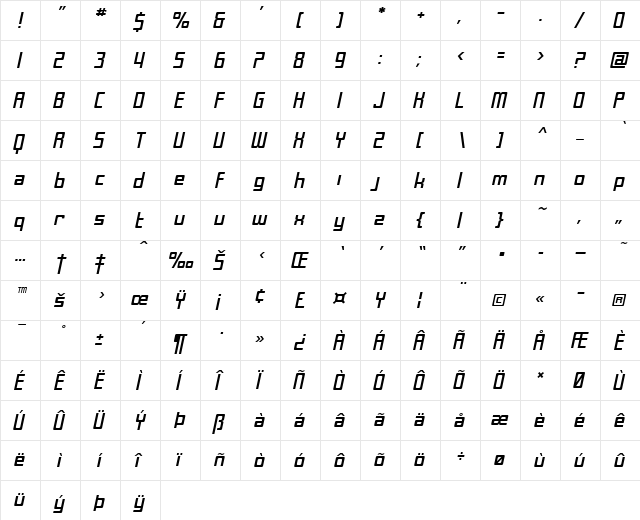
SF Laundromatic Extended Oblique
Design Context for SF Laundromatic Extended Typeface
SF Laundromatic Extended offers clean, dependable letterforms without strong stylistic allegiance, making it a practical choice for designers who need flexibility. The dynamic lean of this cut emphasises speed and emphasis in any layout.
Pro Tip: Try SF Laundromatic Extended for annotation and caption copy alongside an upright companion — the contrast in angle creates a dynamic but ordered typographic system.